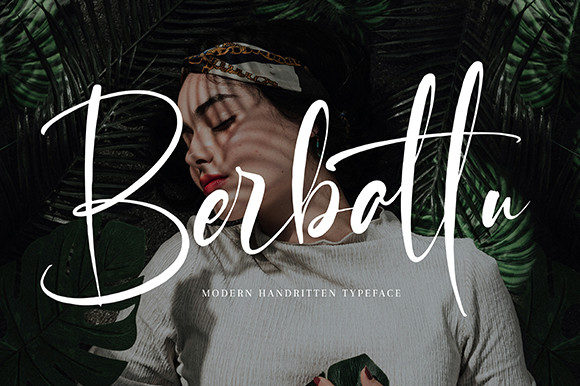
Introducing Berbattu Font: A Magical Script Font with a Touch of Elegance
Are you a designer or crafter looking for a unique and elegant font to elevate your creative projects? Look no further than Berbattu Font, a beautifully crafted script font that is sure to add a touch of magic to your designs. In this article, we’ll take a closer look at Berbattu Font, its features, and how it can be used to take your designs to the next level.
What is Berbattu Font?
Berbattu Font is a carefully crafted script font that exudes elegance and sophistication. With its flowing lines and intricate details, this font is perfect for creating beautiful and eye-catching designs. Whether you’re working on a branding project, a wedding invitation, or a craft project, Berbattu Font is sure to impress.
PUA Encoding: Easy Access to Glyphs and Ligatures
One of the standout features of Berbattu Font is its PUA (Private Use Area) encoding. This means that you can access all of the amazing glyphs and ligatures with ease, giving you even more creative freedom to produce stunning designs. With PUA encoding, you can simply copy and paste the glyphs and ligatures into your design software, making it easy to use and incorporate into your projects.
Features of Berbattu Font
Berbattu Font comes with a range of features that make it an ideal choice for designers and crafters. Some of its key features include:
• Elegant script design: Berbattu Font features a beautiful script design that is perfect for creating elegant and sophisticated designs.
• PUA encoded: With PUA encoding, you can access all of the glyphs and ligatures with ease, making it easy to use and incorporate into your projects.
• Multi-language support: Berbattu Font supports multiple languages, making it a great choice for designers and crafters who work with clients from around the world.
• High-quality design: Berbattu Font is designed to high-quality standards, ensuring that it looks great in any design.
Using Berbattu Font in Your Designs
Berbattu Font is a versatile font that can be used in a wide range of design projects. Here are some ideas for using Berbattu Font:
• Branding projects: Use Berbattu Font to create a unique and memorable brand identity for your clients.
• Wedding invitations: Berbattu Font is perfect for creating beautiful and elegant wedding invitations that will set the tone for a special day.
• Craft projects: Use Berbattu Font to add a touch of elegance to your craft projects, such as handmade cards, gift tags, and scrapbooking pages.
• Digital designs: Berbattu Font can be used in digital designs, such as social media graphics, blog posts, and website headers.
Tips for Getting the Most Out of Berbattu Font
Here are some tips for getting the most out of Berbattu Font:
• Experiment with different sizes and colors: Berbattu Font looks great in a range of sizes and colors, so don’t be afraid to experiment and find the perfect combination for your design.
• Use it with other fonts: Berbattu Font pairs well with other fonts, so try using it with a sans-serif font to create a striking contrast.
• Take advantage of glyphs and ligatures: With PUA encoding, you can access all of the glyphs and ligatures with ease, so take advantage of these to add extra interest and detail to your designs.
Berbattu Font is a magical script font that is sure to add a touch of elegance to your designs. With its PUA encoding, elegant script design, and high-quality construction, this font is perfect for designers and crafters who want to create beautiful and eye-catching designs. Whether you’re working on a branding project, a wedding invitation, or a craft project, Berbattu Font is a great choice. So why not give it a try and see the magic for yourself?